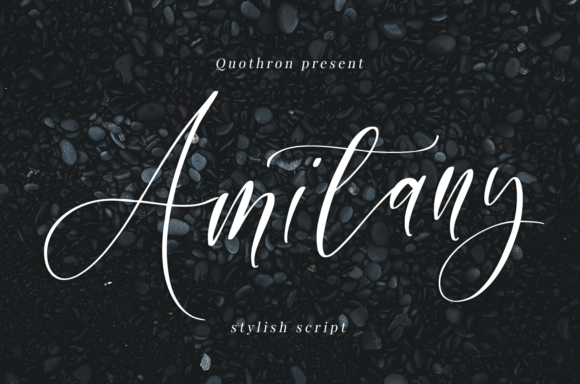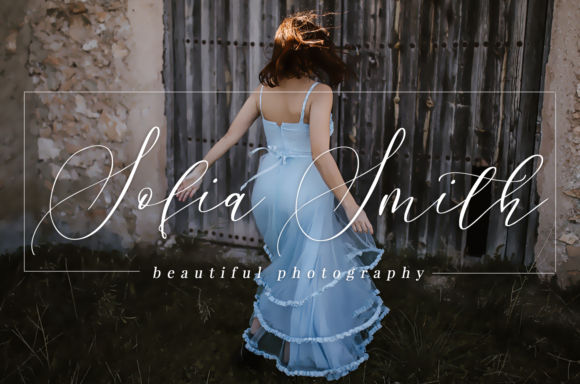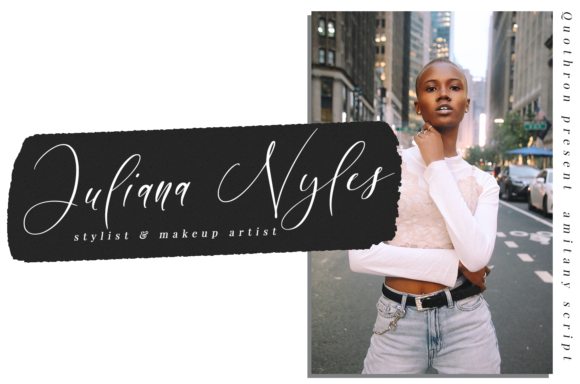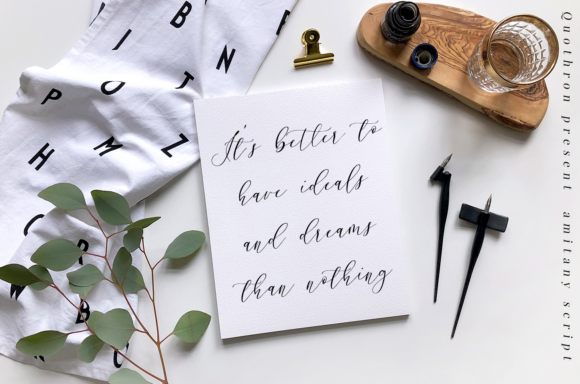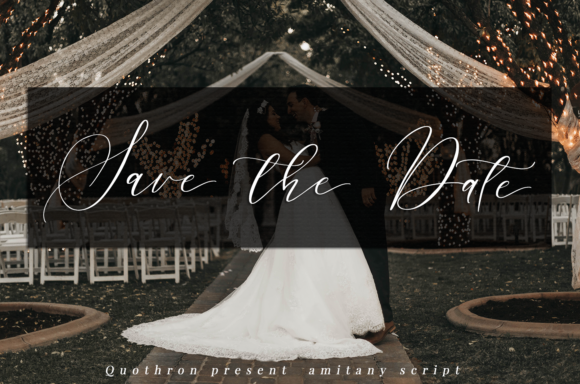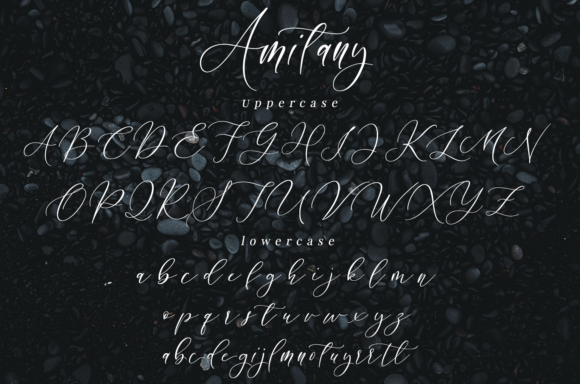
HomeScript FontsAmitany Font Script Fonts Amitany Font FacebookXPinterestWhatsApp Amitany Font Poster 2 Amitany Font Poster 3 Amitany Font Poster 4 Amitany Font Poster 5 Amitany Font Poster 6 Amitany Font Poster 7 About Amitany Font Amitany feels equally lovely and strong, and makes a great addition to any craft library. DOWNLOAD NOW People also explored Clasynda Font Gadistha Font Mandala Font Monogram Floral Font Blossom Font Product Font Artois Font Motoride Font BM Graphics – Graphic Shapes Glyph Font 313 0 TagsAmitany Font Previous articleHandy FontNext articleDandelion Font LEAVE A REPLY Cancel reply Comment: Please enter your comment! Name:* Please enter your name here Email:* You have entered an incorrect email address! Please enter your email address here Website: Save my name, email, and website in this browser for the next time I comment. Personal Use Free Manbow Personal Use Free Read more about this font Xplor Personal Use Free Read more about this font Veronica Personal Use Free Read more about this font Bakk Trieng Personal Use Free Read more about this font BLOG Top 7 Google Fonts Alternatives for Faster and Privacy-Friendly Web Design (2025) Top 7 Google Fonts Alternatives for Faster and Privacy-Friendly Web Design (2025) When it comes to web typography, Google Fonts has long been the go-to... Fonts That Capture the Spirit of New York City Exploring Font Trends Using Fonts in Digital Marketing: Tips to Strengthen Your Brand Identity